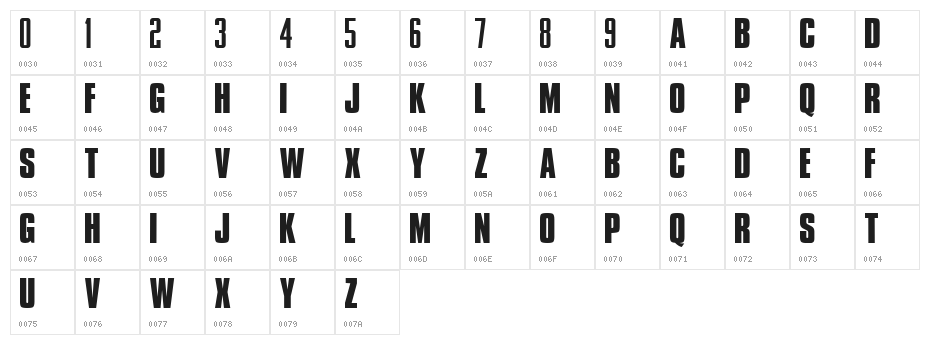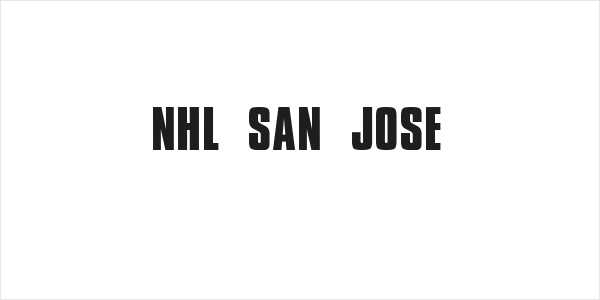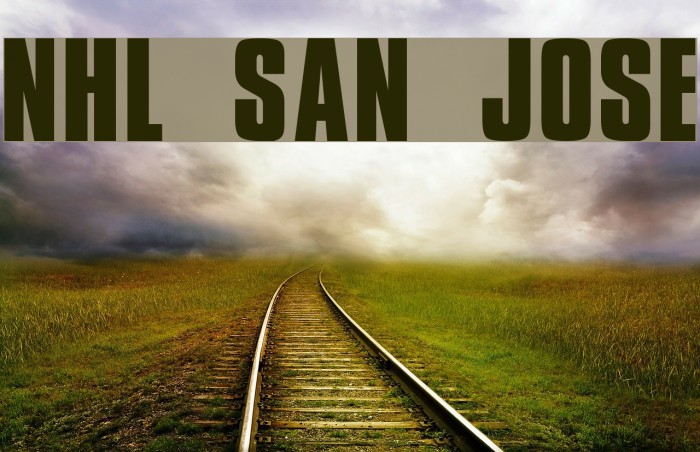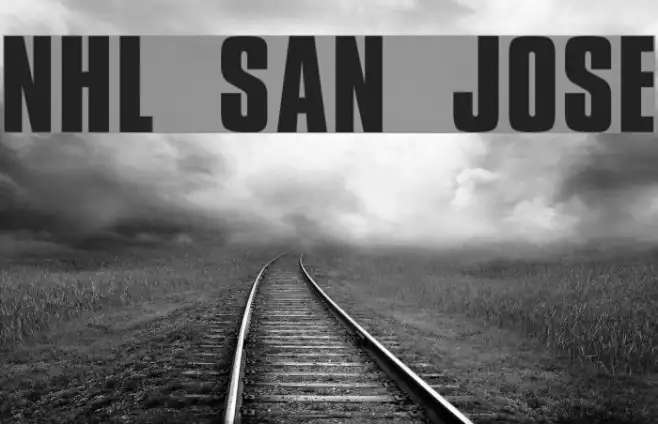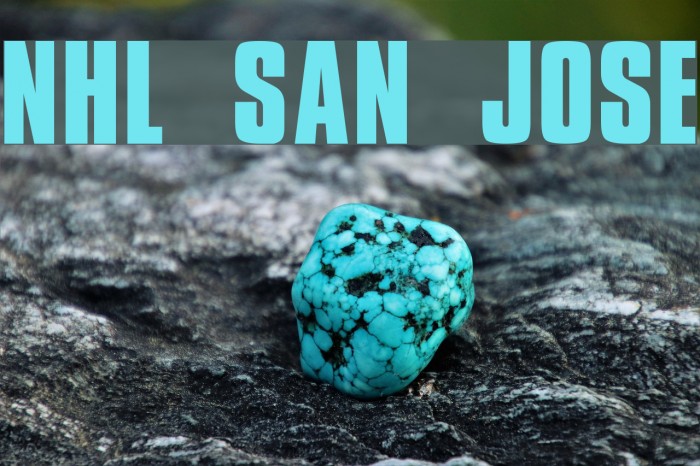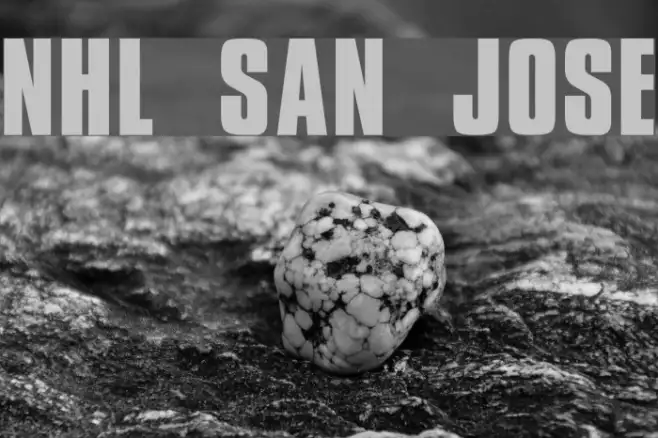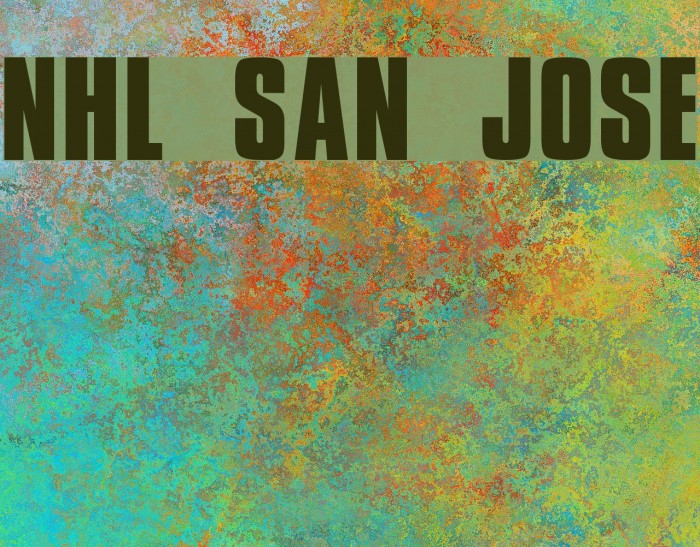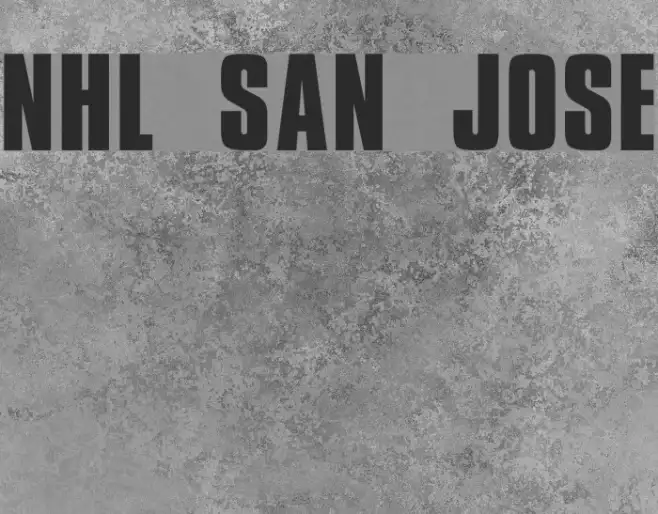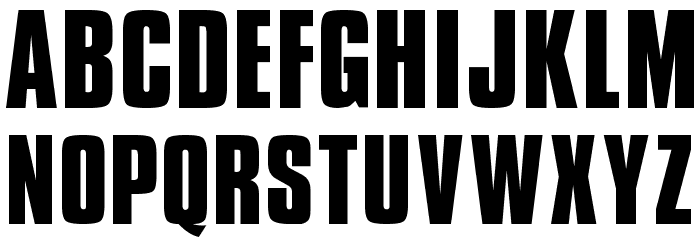
NHL San Jose Font
NHL San Jose Description
This bold, sans-serif typeface features a strong, impactful presence with its thick, uniform strokes and geometric structure. The uppercase letters are particularly striking, with a consistent height and width that convey a sense of stability and power. The numerals are equally robust, maintaining the same boldness and clarity as the letters. The font's design is clean and modern, making it suitable for a variety of applications where a strong visual impact is desired. The spacing between characters is tight, enhancing its compact and cohesive appearance.
| Proposed Projects | Ideal for sports branding, posters, headlines, and any project requiring a bold, impactful typeface. |